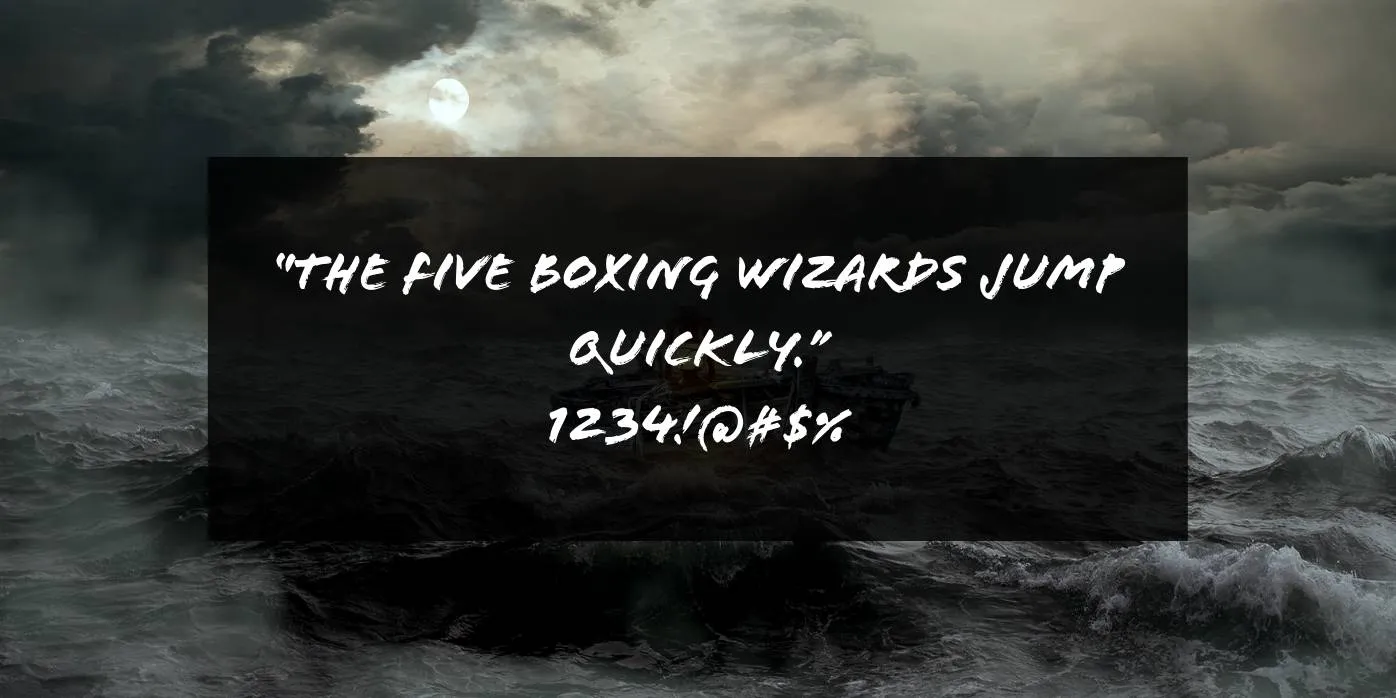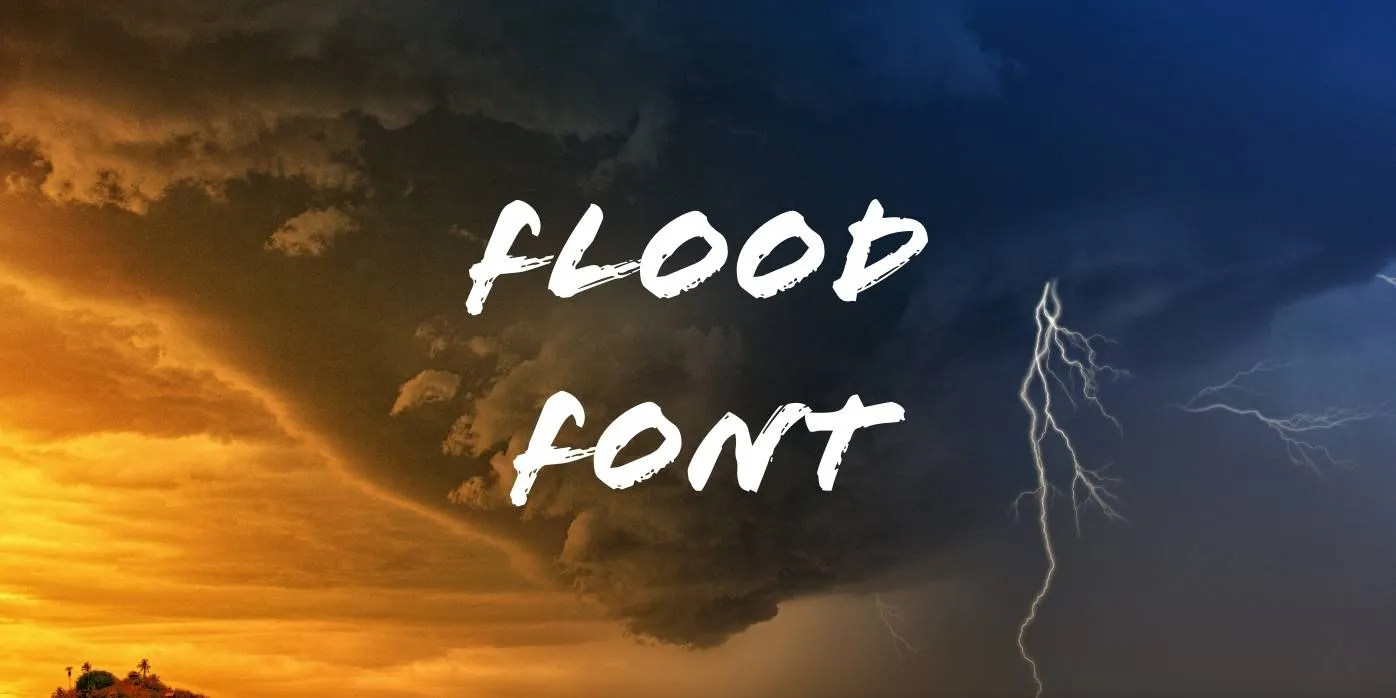
Flood Font
Today, we are consulting on a very classy font family named Flood Font. It belongs to the Brush font family. It was designed by Floodfonts.  It is well specified for the CSS Family. This staggering font is a very popular font family for many reasons.
One reason is that it is very easy to read. Another reason is that it has a very stylish look. And lastly, it is very versatile and can be used for many different purposes. It is best for Adobe Photoshop.
You can also use its similar forte font with the same features. It has keen and clean features, which give it a modern look. The Flood Font family comprises 6 font weights, from light to black. You can use this amazing font for various purposes like headings, body text, titles, etc.